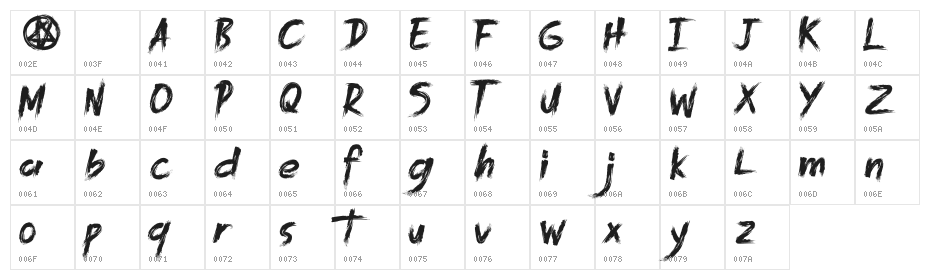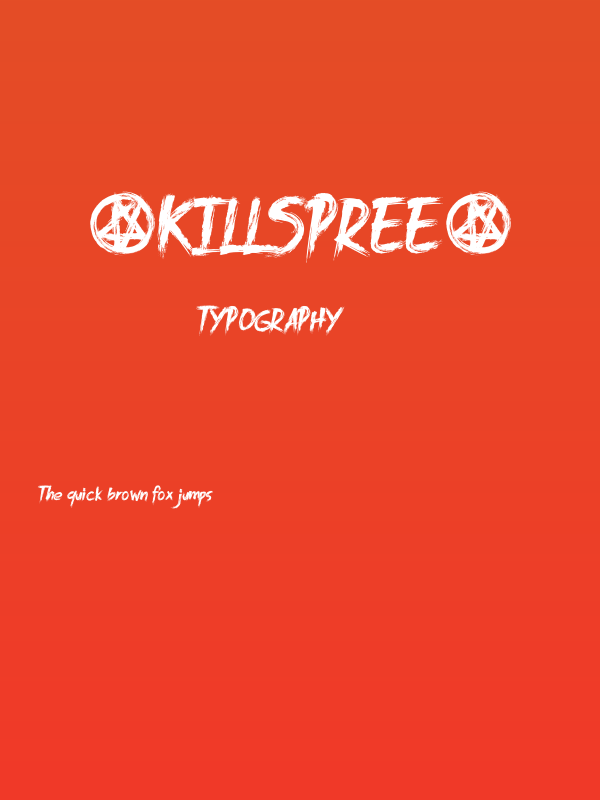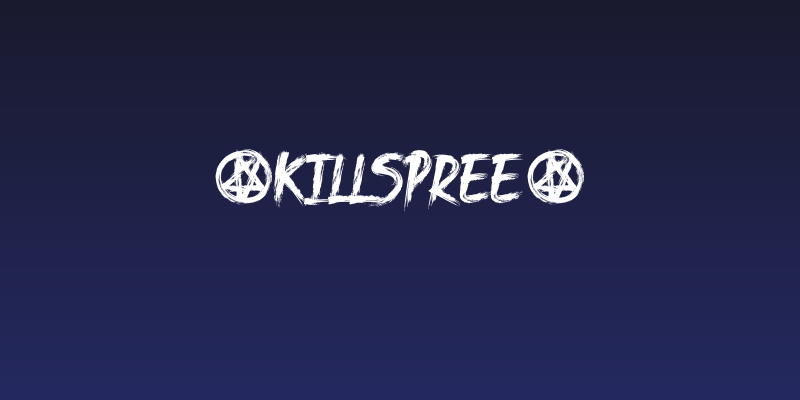
.KILlSPREE. Font
| 整体风格 | Modern, Artistic |
| 推荐项目 | Ideal for music album covers, event posters, graffiti art, and branding that seeks to convey a sense of rebellion or creativity. |